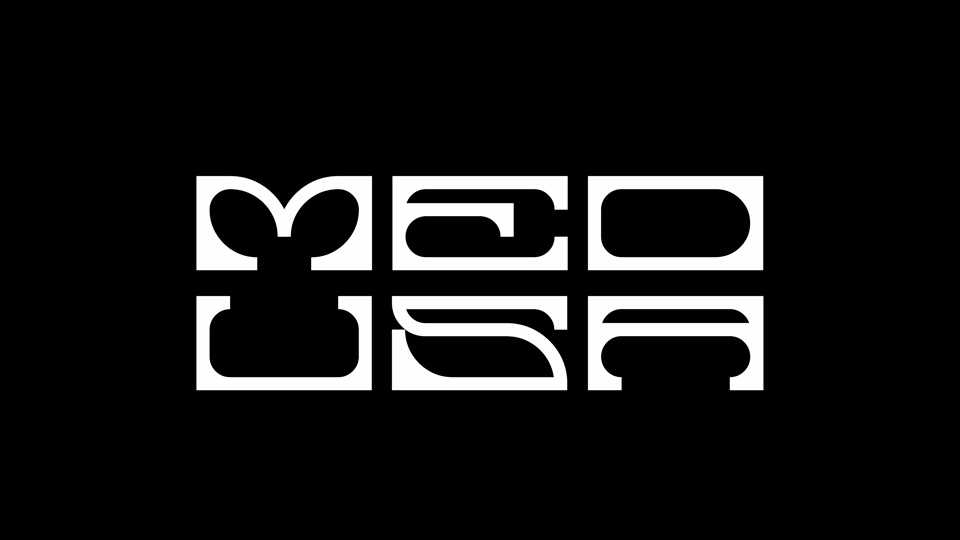
Download Medusa typeface, a unique display font family based on rectangular shapes with geometric cutouts. Medusa includes 5 weights ranging from Light to Black that feature various contrast of the letterforms.
Designer: Benjamin Vernon